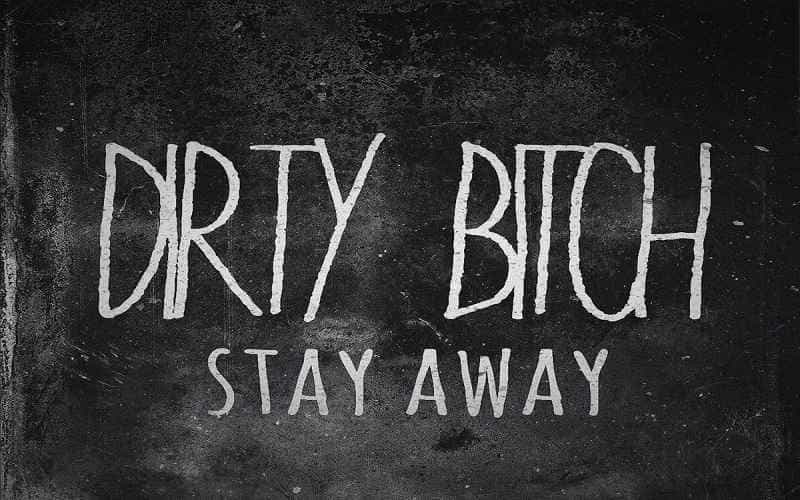
Optimized for PC and MAC and free of charge for personal use is Dirty Bitch It developed by Octotype with all the Ll and some ‘special’ characters in the lower case intended for better readability. The free version of this app offers normal alphabet set including both lower and uppercase letters and some of the special symbols.